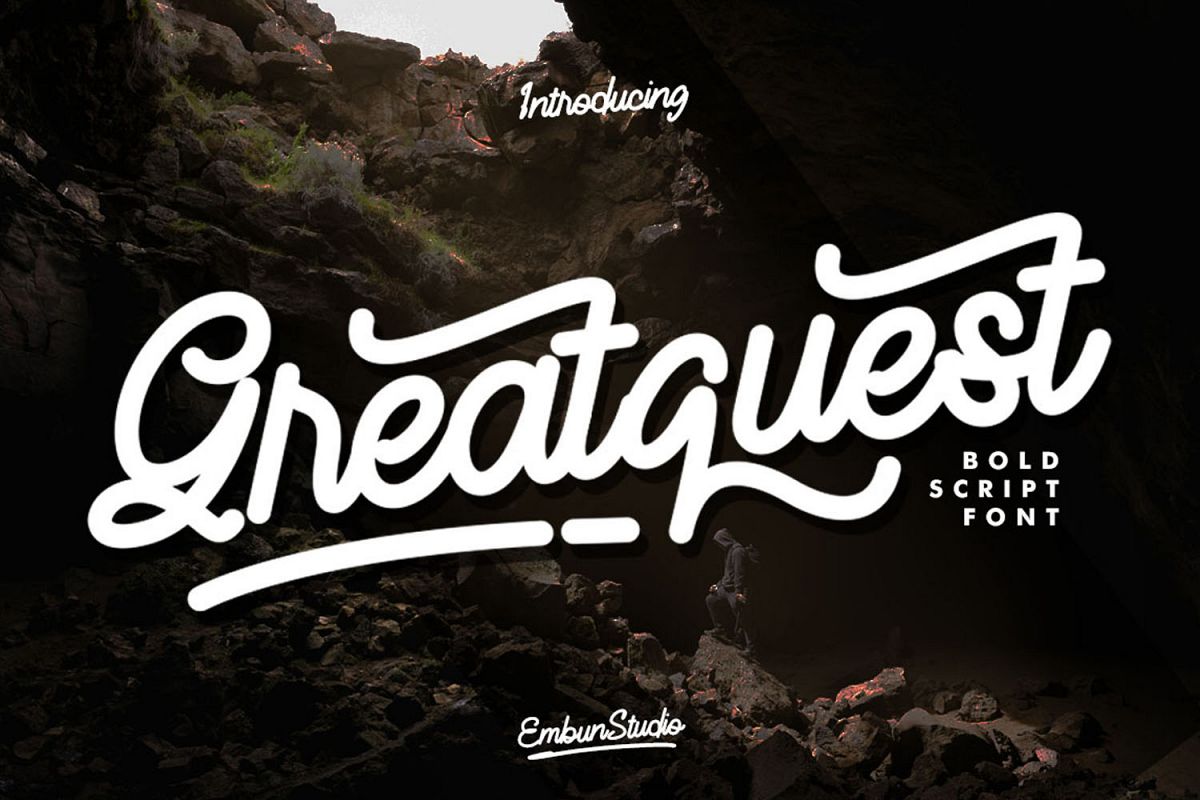
Greatquest Bold Script
Greatquest
Greatquest is bold script font, with a beautiful stylistic alternate, giver your project look more classy and friendly
easy to use alternate and swashes in every situation.